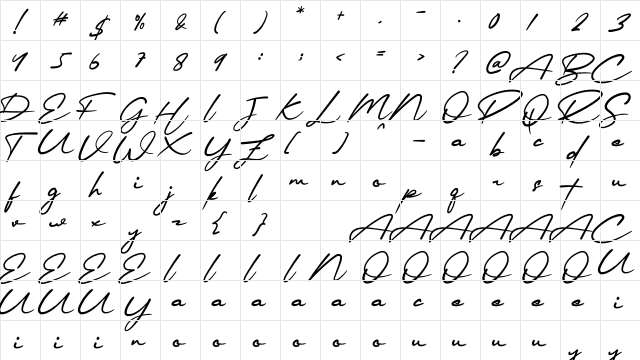
Mellinda Handmade Regular
Design Context for Mellinda Handmade Typeface
Mellinda Handmade brings a calligraphic fluidity to the page — its connecting strokes and expressive curves give it an unmistakably human quality.
Font Pairing: Combine Mellinda Handmade with a simple geometric sans for maximum contrast — the tension between flowing curves and clean structure is a classic typographic pairing.
Pro Tip: Pair Mellinda Handmade with a clean sans-serif for supporting text. The contrast between fluid script and geometric structure creates an elegant typographic hierarchy.